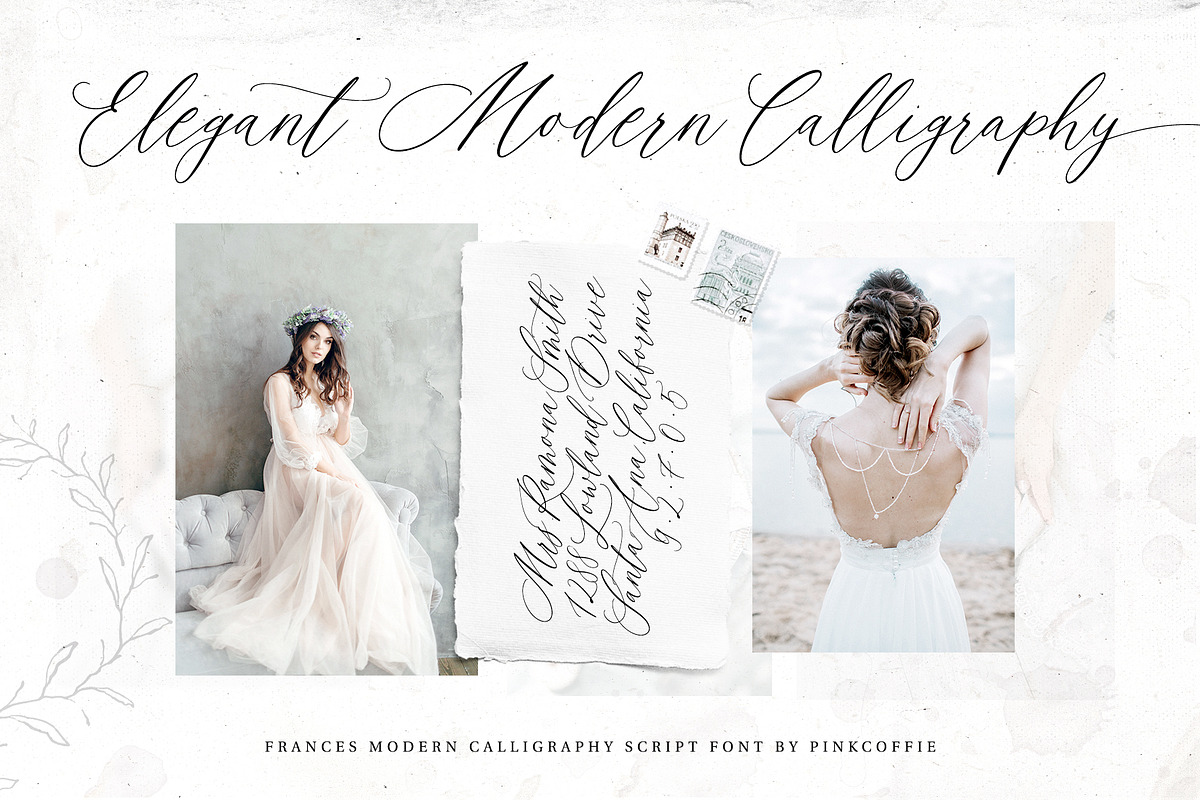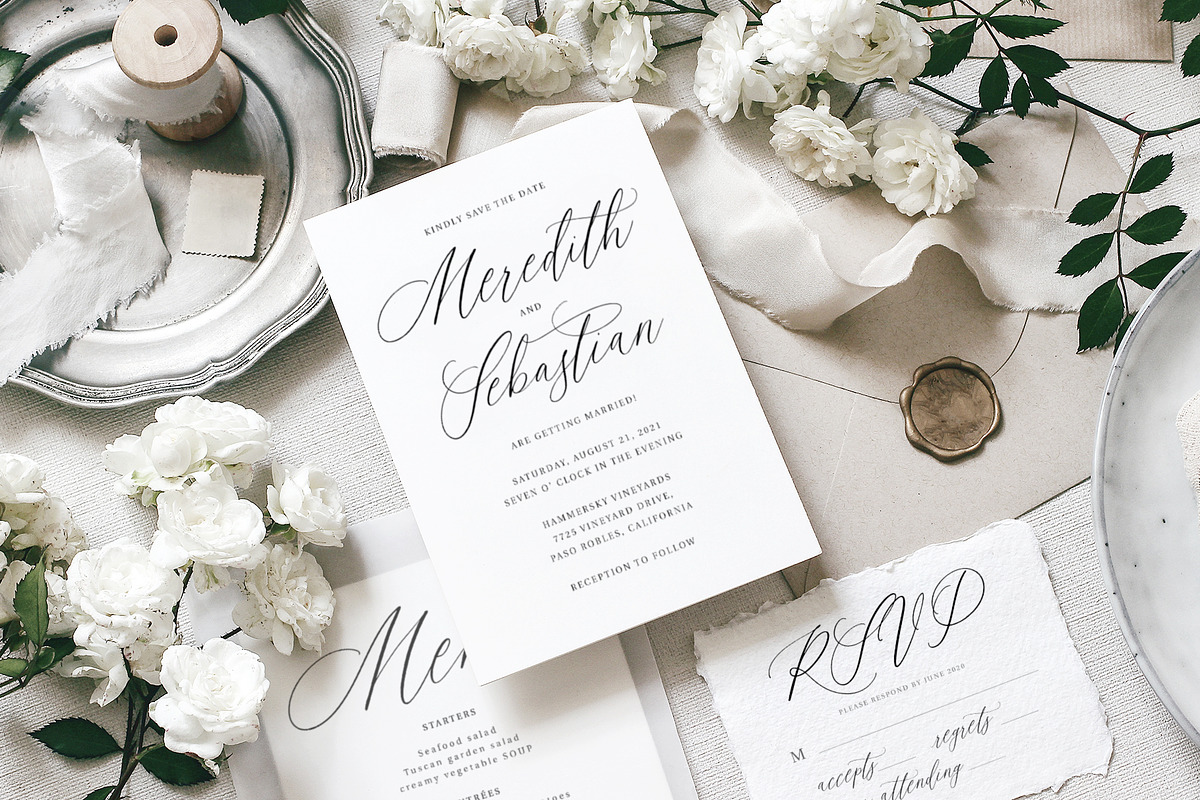
Frances | Modern Calligraphy Script
Say hello to Frances, an elegant and feminine modern calligraphy script font packed with two lowercase letter sets, double-letter ligatures, bonus alternates for t, r, and s letters, and two sets of premade beginning and ending swashes to mix and match.
Frances can be used for various projects including but not limited to wedding invitations and wedding suites, stationery, packaging, feminine branding, logos, quotes, and prints.
As all my fonts, Frances includes multilingual support and the following multi-lingual characters: ÀÁÂÃÄÅĂĄÆĆČÇĎĐÈÉÊĚËĘÌÍÎÏĹĽŁŃŇÑÒÓÔÕÖŐØŔŘŚŠŞŤÙÚÛÜŰŮÝŸŹŻŽ ãàáâäåăąæßćčçďđèéêěëęìíîïľłńňñòóôõöőøŕřśšşťùúûüűůýÿźżž